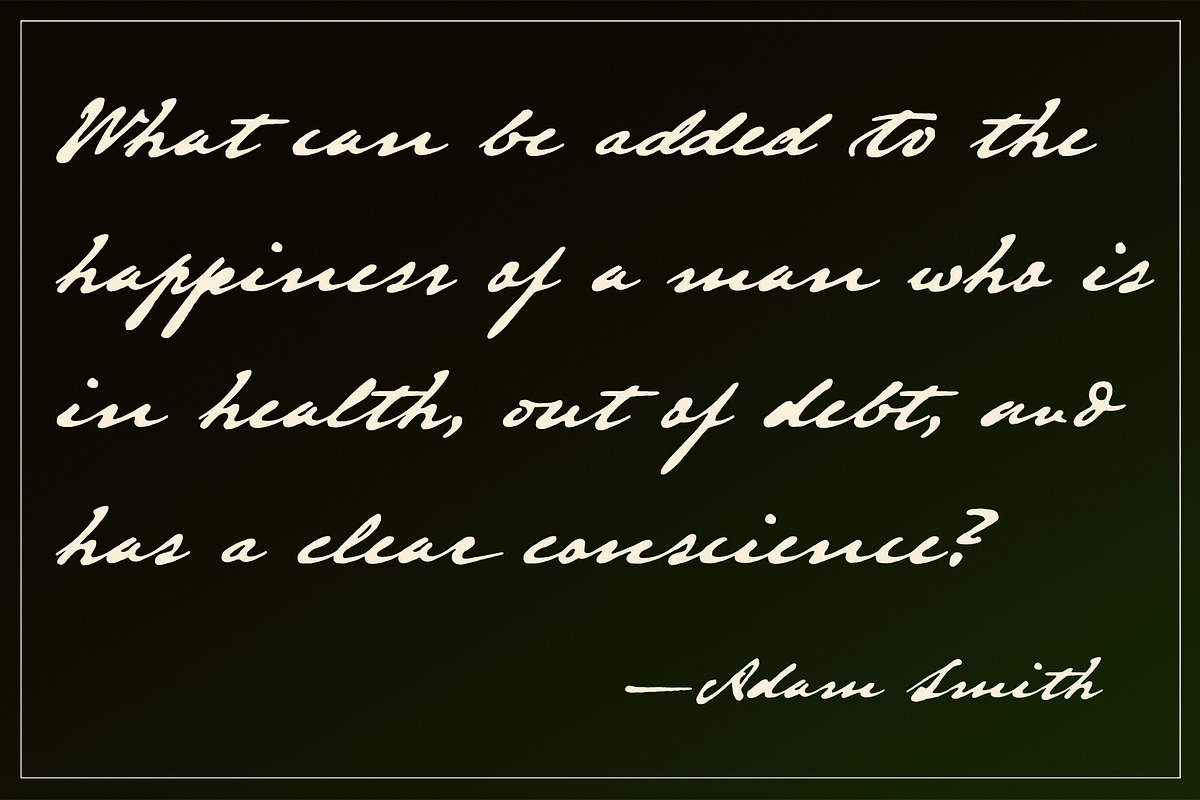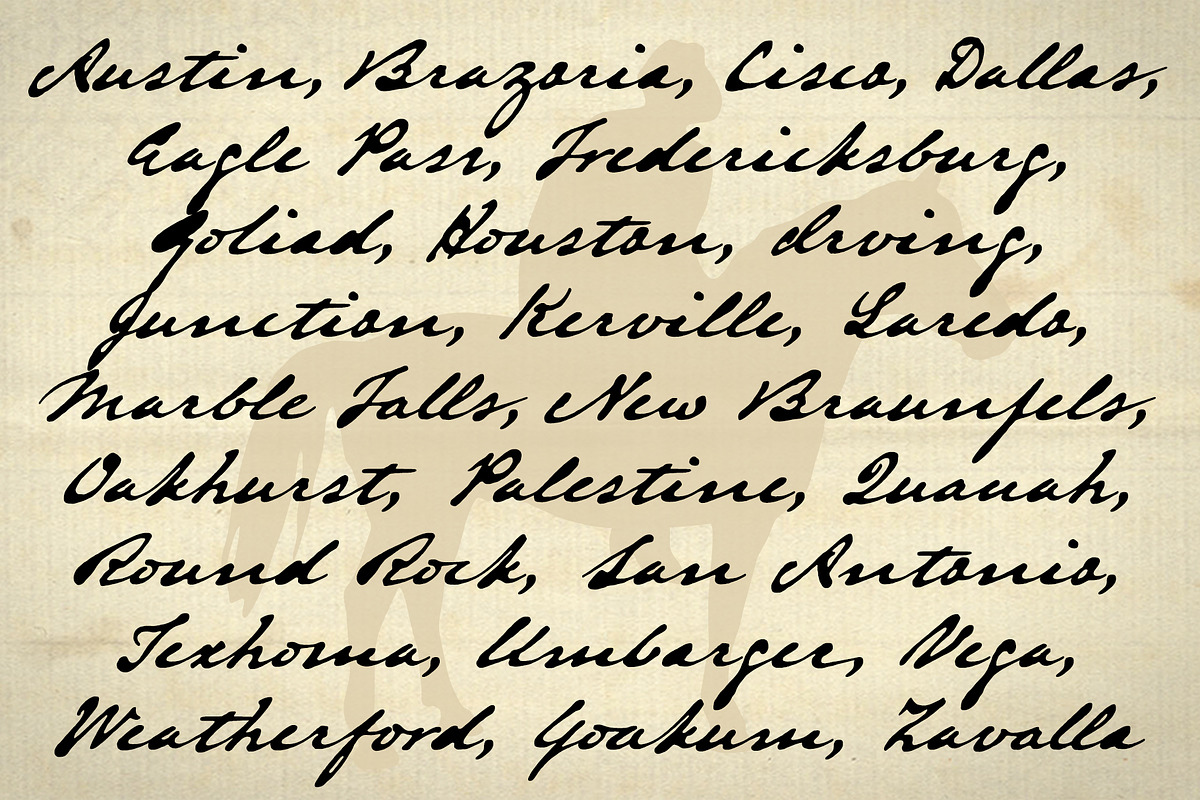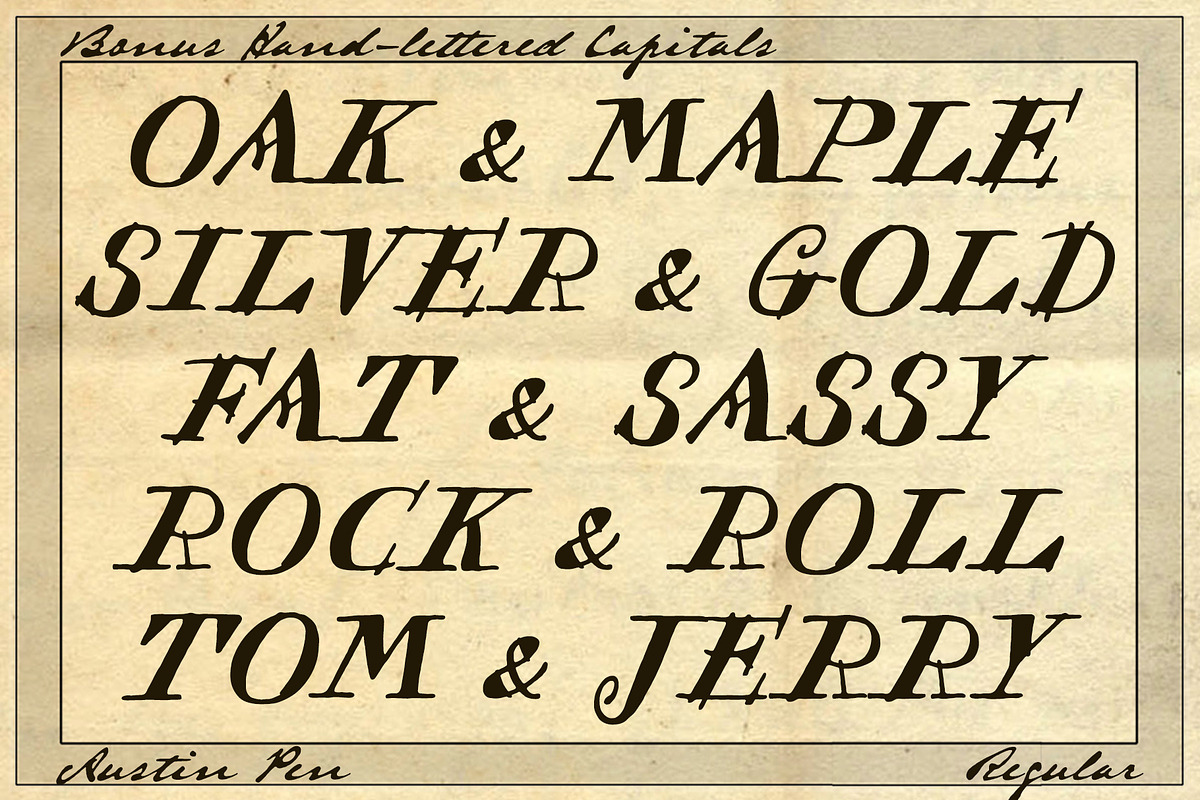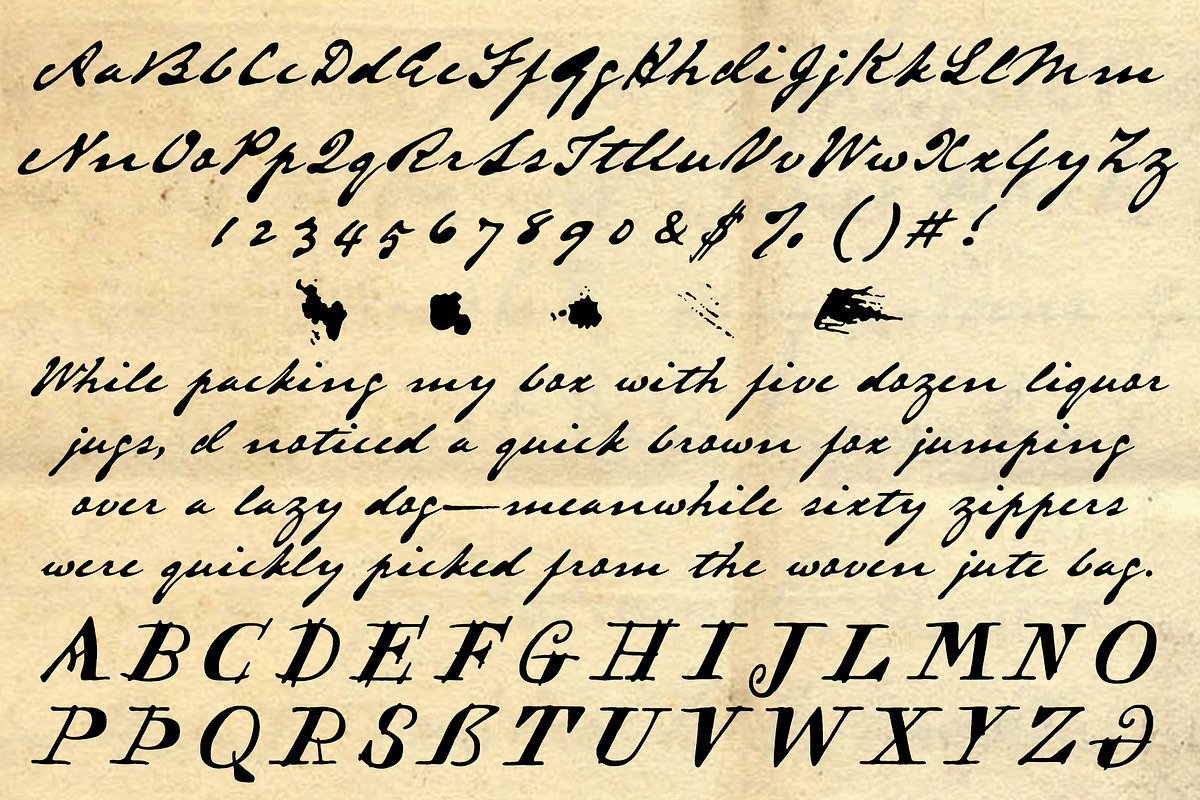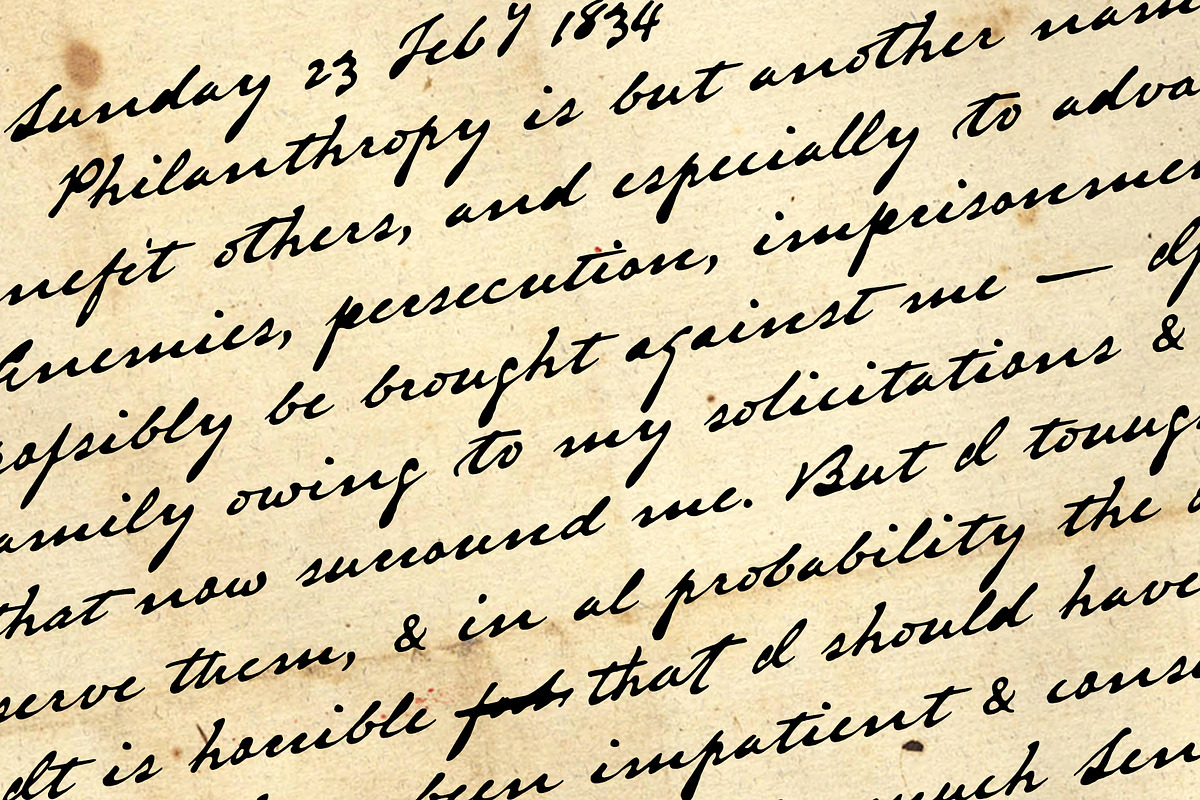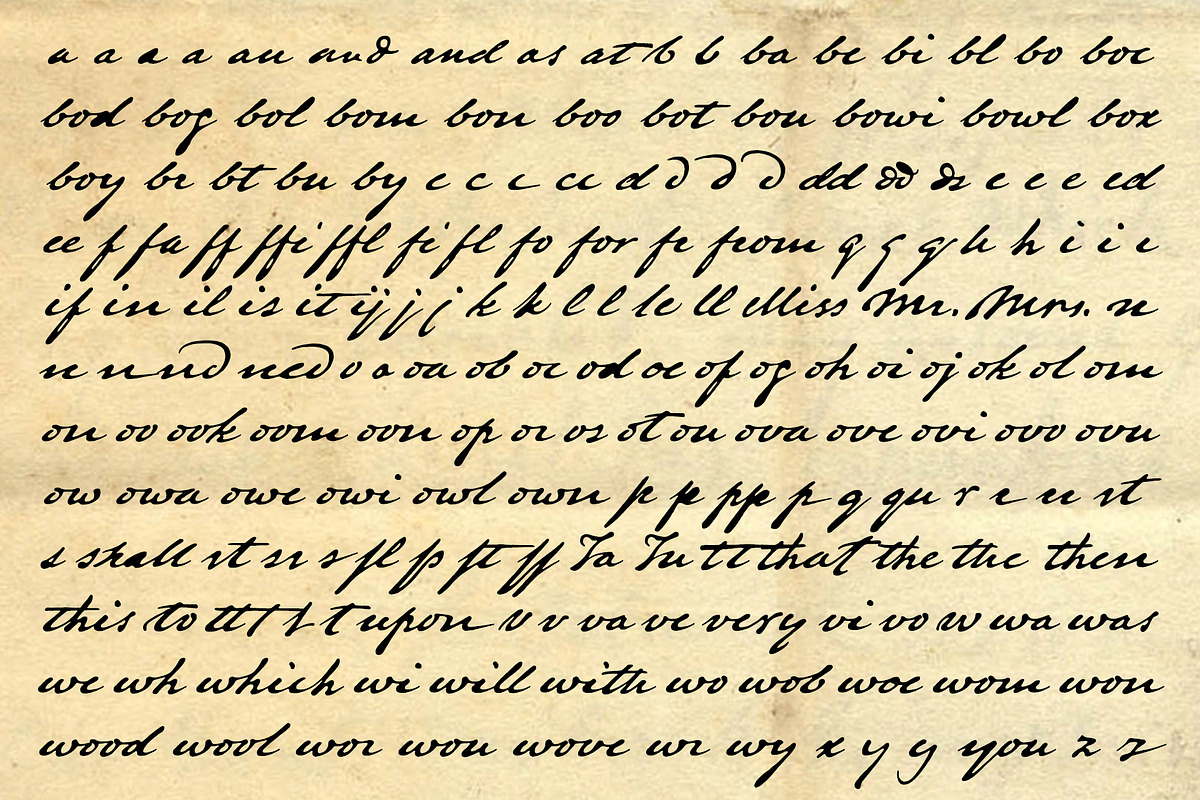
Austin Pen Bold, over-inked quill font
Empresario Stephen F. Austin (1793-1836) is considered by many the “Father of Texas” for leading the first Anglo-American colony into the then-Mexican territory back in the 1820s. A few years later, while on a diplomatic mission to Mexico City, Austin was arrested on suspicion of plotting Texas independence and imprisoned for virtually all of 1834. During this time he kept a secret diary of his thoughts and musings—much of it written in Spanish.
Austin Pen Bold is the heavy weight of the Austin Pen family, an interpretation of S. F. Austin’s scribblings in his Mexican prison diary. It accurately replicates the look of old handwritten materials whose author used a freshly inked—perhaps even over-inked—pen. Like the Regular weight, it has nearly 1,200 glyphs and full Latin support. (Consider licensing the full family, as both styles work well together.)
OpenType features include scores of standard and discretionary ligatures, stylistic alternates, contextual substitutions, lining and old-style figures, cross-outs, ink blots, and a bonus hand-lettered uppercase alphabet.